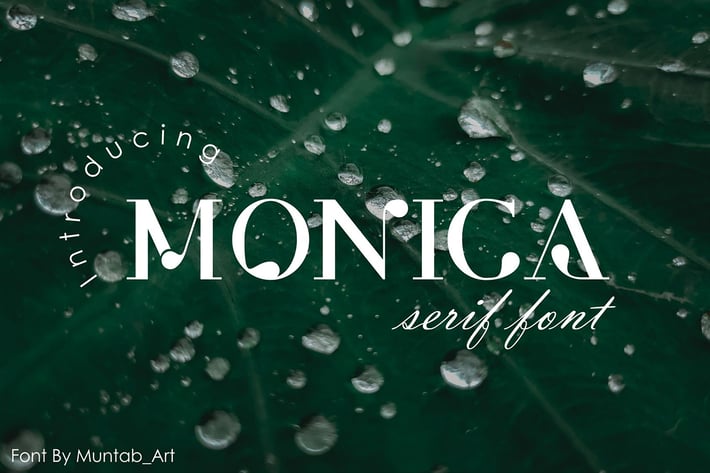
Monica | Modern Serif font
Monica fonts includes uppercase letters, numerals, a large range of punctuation. Serif font with modern style. Created for poster, web design, branding, illustrations, badges and some other works.